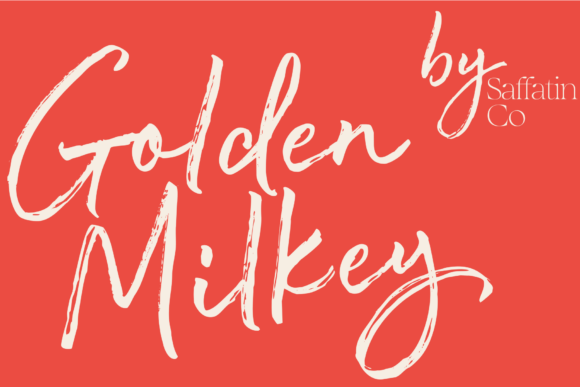
Introducing Golden Milkey Brush Font: Elevate Your Designs with Elegance and Authenticity
In the world of digital design, fonts play a crucial role in conveying messages, evoking emotions, and creating a lasting impression. Among the myriad of fonts available, the Golden Milkey Brush Font stands out for its unique blend of boldness, grace, and versatility. This article explores the features, applications, and benefits of using Golden Milkey in your design projects, highlighting why it has become a go-to choice for designers seeking to infuse their work with a personal touch.
What is Golden Milkey Brush Font?
Golden Milkey is a bold yet graceful brush font that captures the essence of hand-painted lettering while offering a modern, versatile appeal. It effortlessly blends playful curves with organic strokes, infusing each project with a personal and inviting touch. The font’s smooth flow and natural brush texture inspire creativity and charm, making it an essential choice for designers who prioritize style alongside readability.
Applications of Golden Milkey Brush Font
Golden Milkey excels in a variety of design applications, including:
- Branding: Create memorable logos and brand identities that stand out.
- Packaging: Elevate product packaging with eye-catching text that reflects your brand’s personality.
- Social Media Posts: Make your social media content more engaging with visually appealing text.
- Invitations: Design elegant and inviting invitations for events and gatherings.
- Print-on-Demand Products: Transform simple text into striking statements on t-shirts, mugs, and more.
Benefits for Designers
Golden Milkey introduces a touch of elegance and authenticity to any design project. Whether you are designing a cozy café logo, a whimsical quote print, or engaging digital content, this font ensures your design stands out. Its robust features and multilingual support make it a versatile tool for designers worldwide.
Ideal Projects for Golden Milkey
This font is perfect for projects that require a heartfelt, handcrafted influence. Some ideal projects include:
- Café or Restaurant Logos: Add a warm and inviting feel to your establishment’s branding.
- Quote Prints: Bring whimsy and inspiration to your quote prints with elegant, hand-painted text.
- Digital Content: Enhance your blog posts, social media updates, and website content with a personal touch.
- Stationery and Invitations: Create beautiful, one-of-a-kind stationery and invitations for special occasions.
Advantages of Using Golden Milkey Brush Font
There are several advantages to using Golden Milkey in your design projects:
- Unique Style: Offers a distinctive, hand-painted look that sets your designs apart.
- Versatility: Suitable for a wide range of design applications, from digital content to print materials.
- Elegance and Authenticity: Adds a touch of sophistication and genuineness to your designs.
- Multilingual Support: Supports multiple languages, making it a great choice for global brands and designers.
- Readability: Balances style with readability, ensuring your message is both visually appealing and easily understood.
Tips for Using Golden Milkey Brush Font Effectively
To make the most of Golden Milkey, consider the following tips:
- Pair with Simple Fonts: Use Golden Milkey as a headline font and pair it with simpler fonts for body text to create visual hierarchy.
- Experiment with Colors: Take advantage of the font’s versatility by experimenting with different colors and gradients.
- Adjust Letter Spacing: Customize letter spacing to enhance readability and aesthetic appeal.
- Use in Combination with Images: Combine Golden Milkey with relevant images or illustrations to create engaging visual content.
Golden Milkey Brush Font is a powerful tool for designers looking to add a personal, elegant touch to their projects. Its unique blend of boldness, grace, and versatility makes it suitable for a wide range of applications, from branding and packaging to digital content and print materials. By incorporating Golden Milkey into your design workflow, you can create visually stunning and memorable pieces that resonate with your audience.